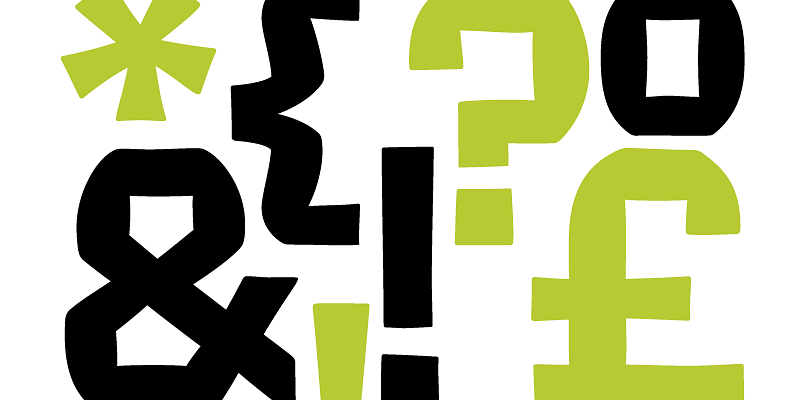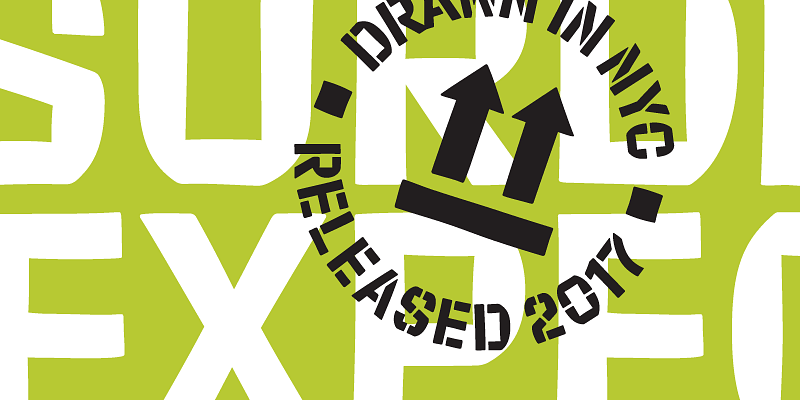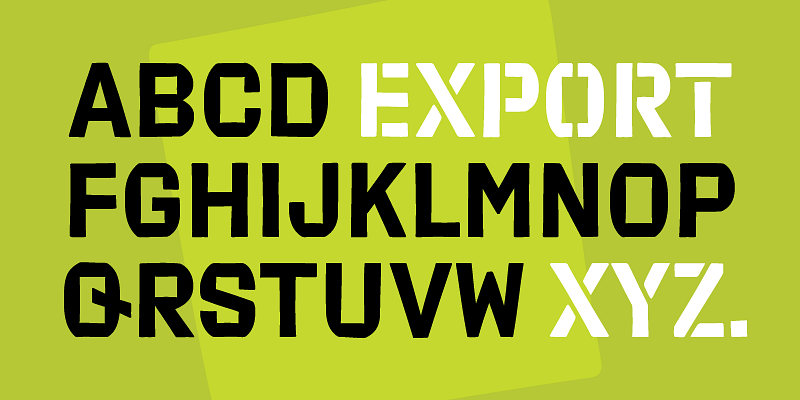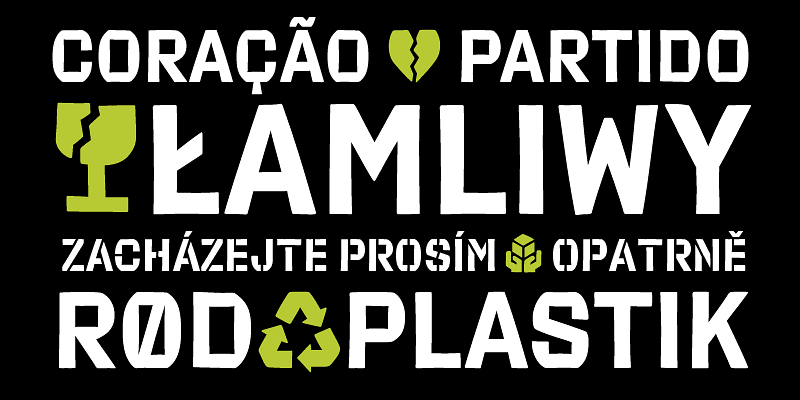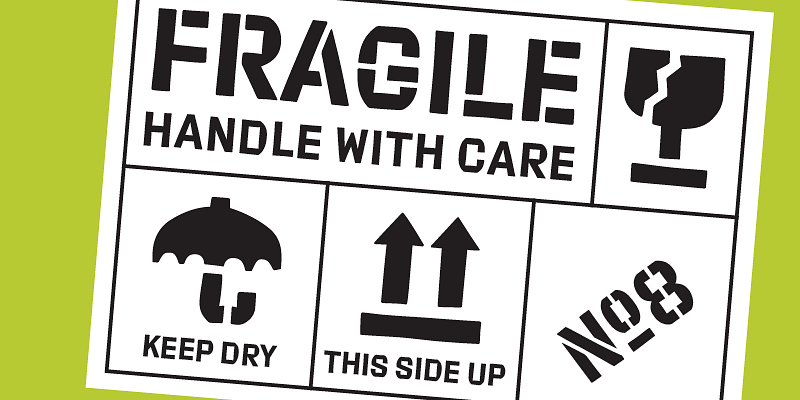
While walking around New York City one day, Jesse Ragan happened upon a string of unconventional letters bluntly printed on the side of a cardboard shipping box from a hand-carved flexo plate. The letters’ original creator is unknown, but Jesse decided to pay homage to the unpretentious forms via an all-caps typeface, in Regular and Stencil versions, that preserves the brawn and bite of its analog inspiration.
A system of bulges and pinches underlies Export’s irreverent internal logic. Rough edges lend a soft finish to the face’s blocky heft. Eccentric shapes command attention when isolated, but an industrial rhythm takes hold in chunks of text.
Export Stencil turns the playful concept of the original on its side, with a network of breaks that are at once pragmatic and illogical. Although a collection of shipping caution symbols are enclosed, this is one durable package.